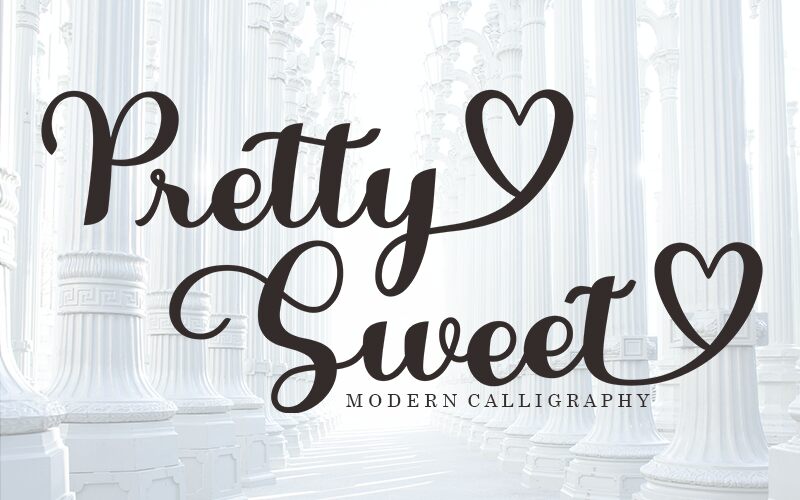
Pretty Sweet, a captivating calligraphy font designed by Mu Fazzal, is a delightful choice for projects that seek elegance and sophistication.
With its graceful strokes and intricate details, this font adds a touch of charm to wedding invitations, greeting cards, and event posters. The playful curves and flourishes make it equally suitable for branding projects, creating eye-catching logos or packaging designs that exude creativity.
Pretty Sweet's versatility extends to digital media as well, enhancing websites and social media graphics with its unique character. Let this enchanting calligraphy font elevate your designs with its timeless beauty.
Features: Lowercase Beginning & Ending Swashes & Ligatures.